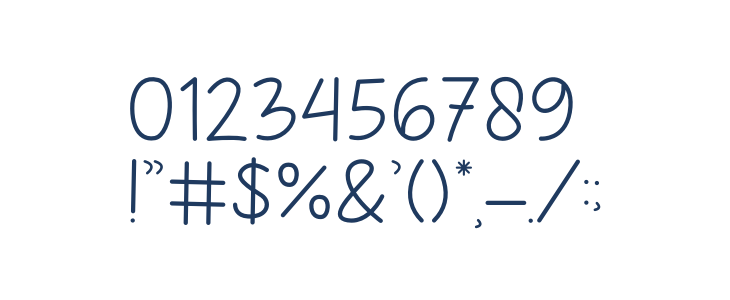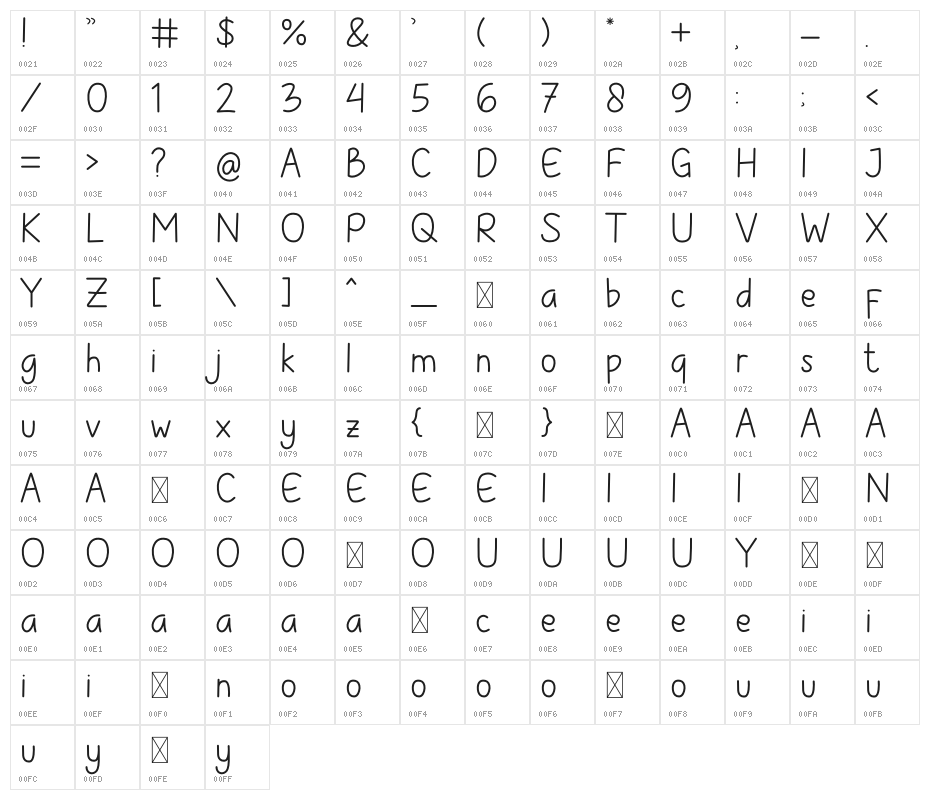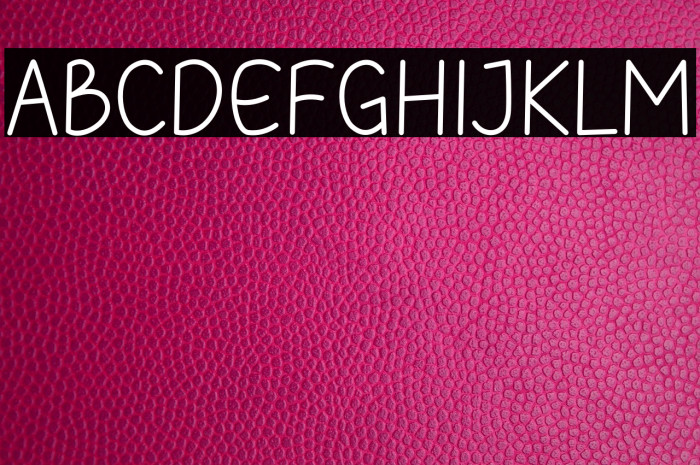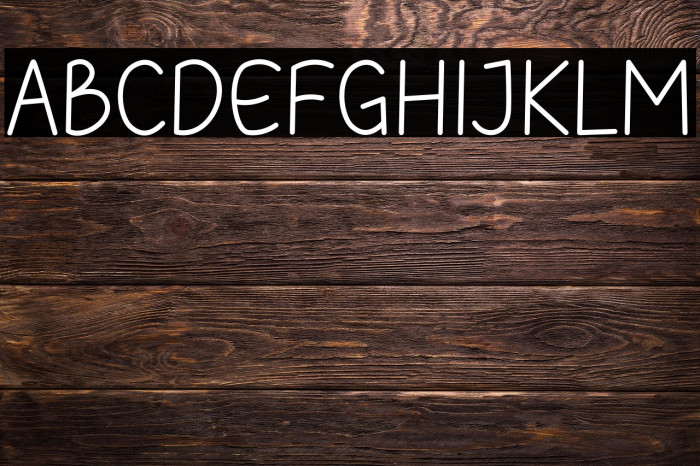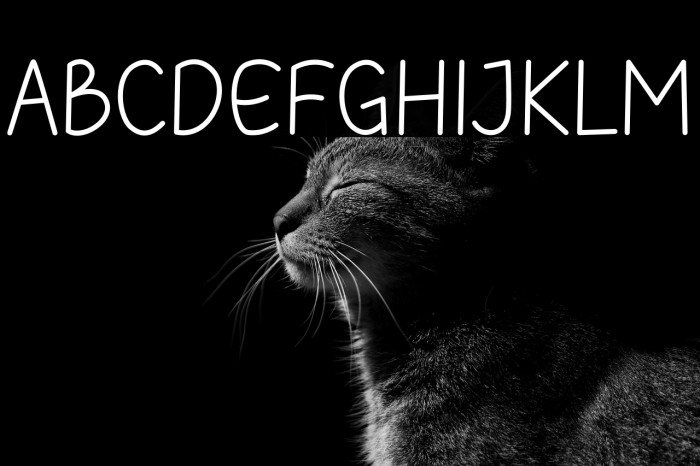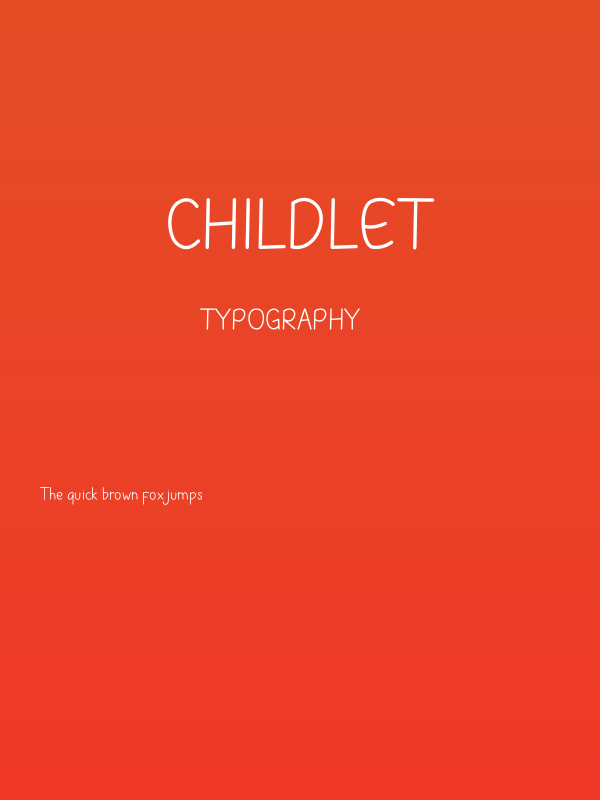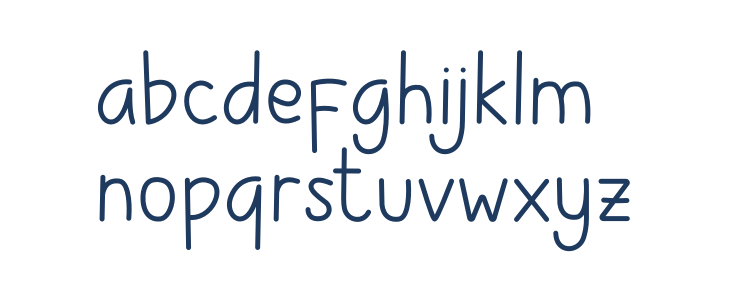
Childlet Font
Childlet Description
This playful and whimsical font features a handwritten style that exudes a sense of fun and creativity. The characters are slightly irregular, adding to the charm and informal feel. The uppercase letters are tall and narrow, while the lowercase letters have a more rounded appearance, creating a friendly and approachable look. The numbers and special characters maintain the same playful aesthetic, making this font versatile for various uses. Its simplicity and clarity make it easy to read, while the unique style ensures it stands out.
| Use Case | Headlines, Logos, Children's materials |
| Proposed Projects | Ideal for children's books, educational materials, playful branding, and creative projects. |